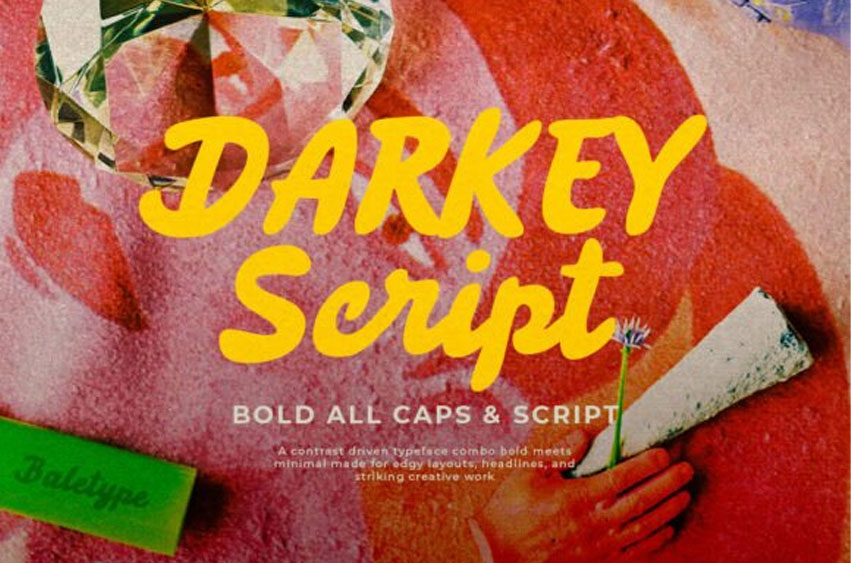
Darkey Font is a bold handwritten font with two versions: All Caps and Script. You can use both fonts in your project, and they will complement each other.
These fonts are suitable for any designs, such as branding, quotes, logotype, or even taglines.